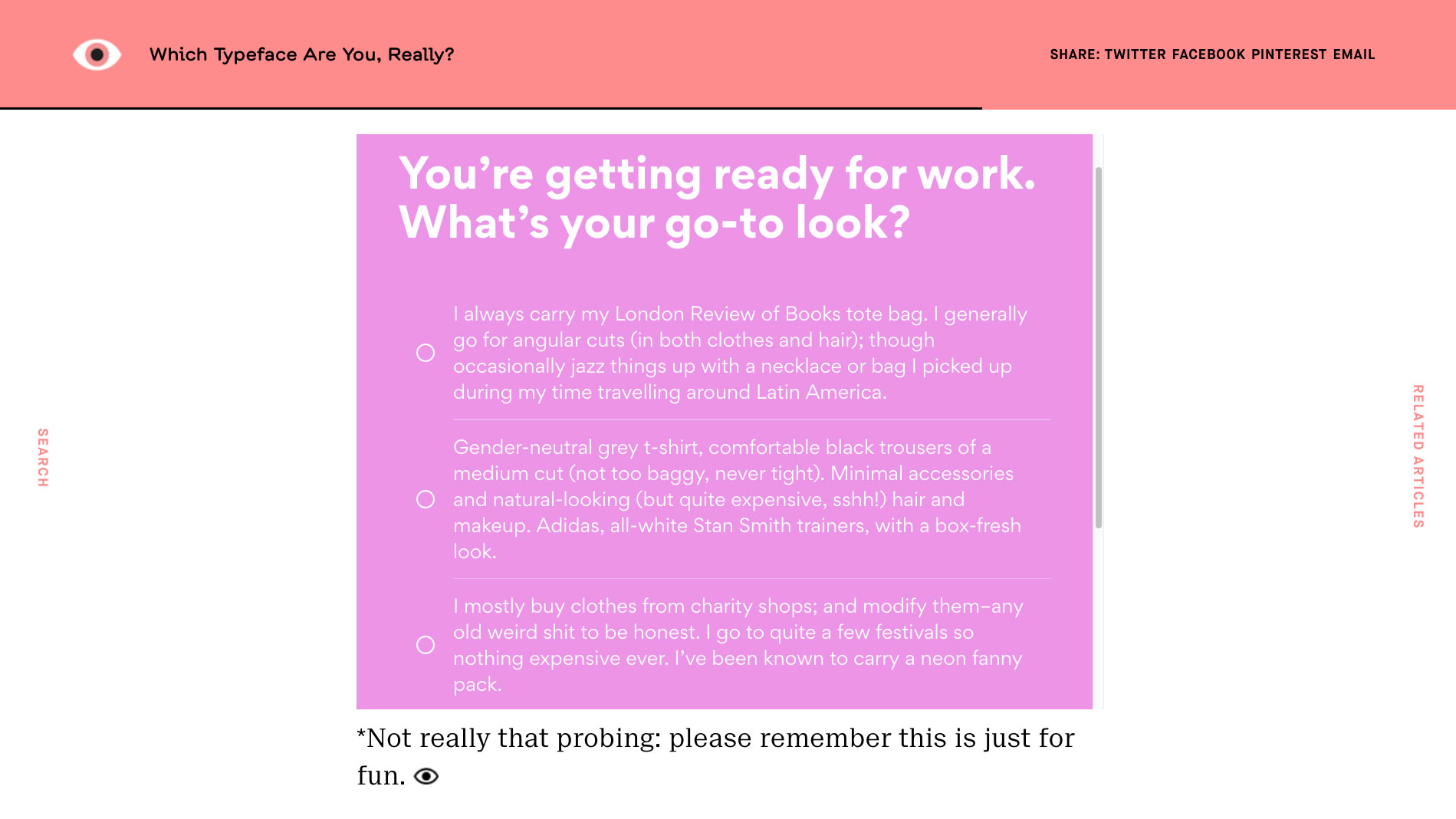
QUIZ: Which typeface are you, really?
Find the type style that perfectly matches your personality.
If you were to describe yourself as a typeface, which one would you choose? Are you a traditional, straight-down-the-middle sort of person, like Helvetica? Or are you a bit of a people-pleaser, like Johnston 100? Given that there are nearly 80 styles in our guide to the best free fonts for designers, there are certainly plenty of options to choose from.
To help you find out which typeface best represents your personality, the American Institute of Graphic Arts (AIGA) has created a fun little quiz. The institute, whose recent design census found out that illustrators are the poorest but the happiest in the industry, created this short typeface test for its Eye on Design magazine, and you can take it right now.
With just six probing questions to answer, including 'you're getting ready for work. What's your go-to look?' and the old favourite 'which, if any, of these star signs are you' it won't take you very long.
Once you've whizzed through the questions you'll be given your result and a useful bit of contextual info. Thanks to our interest in film soundtracks and Aquarian leanings, we got allocated Galapagos, a fairly goofy font designed by Felix Salut in collaboration with Dinamo in 2016. Go figure.
And like the best online quizzes, you can easily retake the test if you're not satisfied with the result. But given that the answers are difficult to second guess, it might be harder than you think to rig the test to get your favourite font.